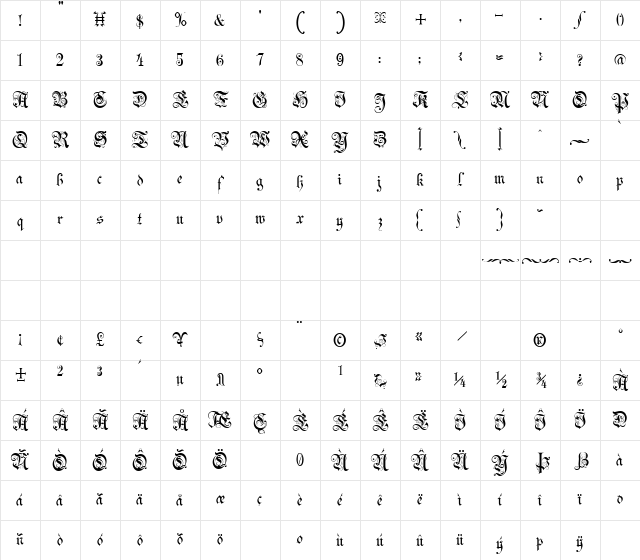
Theodore Fancy Regular
Designer: Tony Nash
Design Context for Theodore Fancy
Theodore Fancy is a composed and adaptable typeface that performs quietly and consistently across a wide range of design contexts.